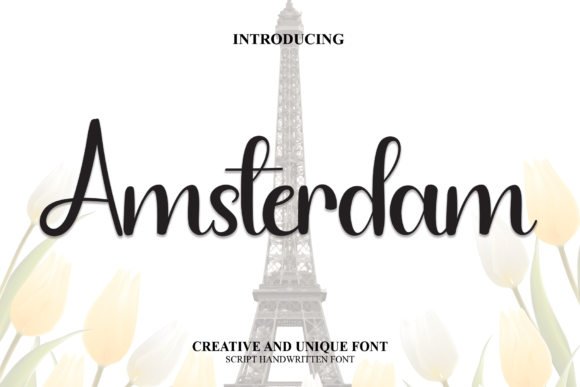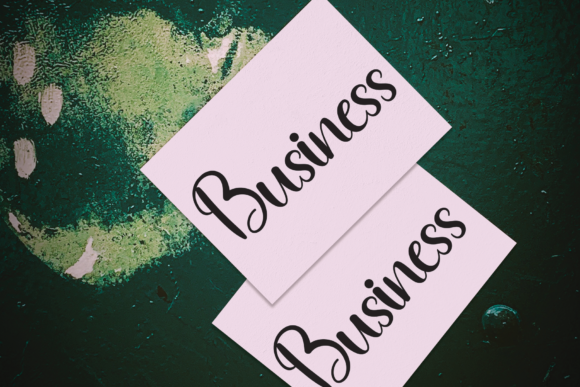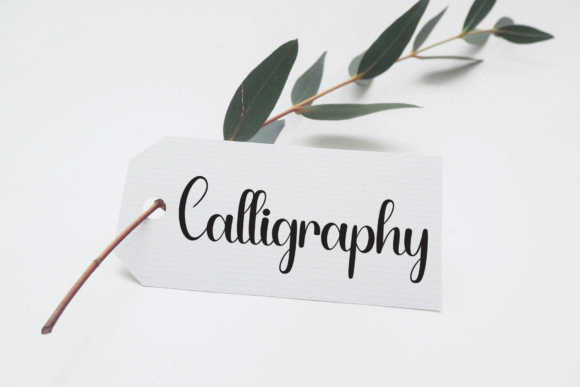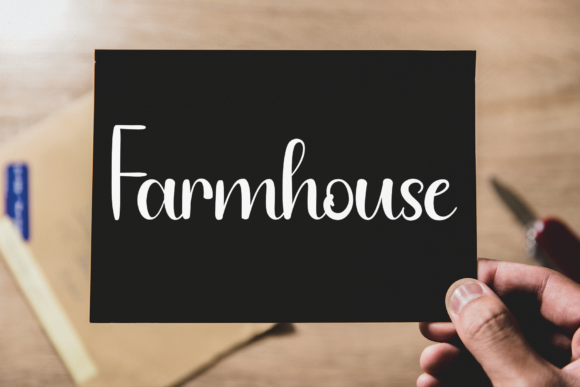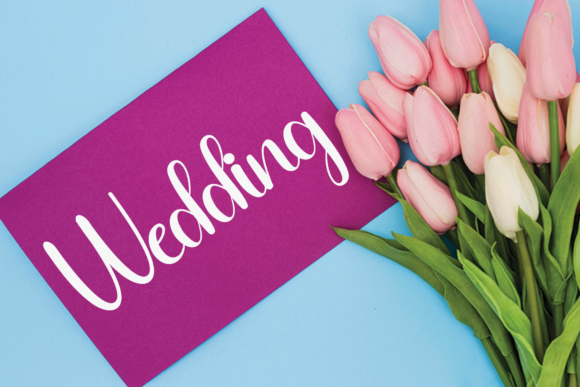
Amsterdam Font
About Amsterdam Font
Introducing this enchanting script font – a captivating blend of sweetness, romance, and beauty that breathes life into your designs. Each letter is adorned with stunning curves, adding a touch of elegance and charm to your typographic creations. But what sets this font apart is not just its visual appeal; it’s the seamless accessibility it offers through PUA encoding, unlocking a world of creativity with every glyph and sweep at your fingertips!
In the realm of design, a font’s ability to convey emotions and create a visual language is unparalleled. This script font achieves just that, combining sweetness, romance, and beauty in a harmonious dance of curves that grace each letterform. The result is not just a set of characters but a visual poetry that evokes feelings of warmth and sophistication.
The curves in this font are nothing short of stunning. Each letter is meticulously crafted to exude a sense of grace and refinement. The smooth lines and elegant swirls enhance the overall aesthetic, making it a perfect choice for projects that require a touch of delicacy and allure. Whether you’re working on wedding invitations, love notes, or any design that demands a romantic vibe, this font delivers with flair.
What makes this script font truly remarkable is its PUA encoding. This feature opens up a treasure trove of possibilities for designers. Accessing all the glyphs and swashes is a breeze, offering unparalleled flexibility in customization. This means you have the power to infuse your designs with unique elements, tailoring each project to your creative vision.
Imagine effortlessly incorporating intricate swashes into your wedding invitations or adding a personalized touch to your social media graphics. With PUA encoding, the process is intuitive, giving you the freedom to explore and experiment without constraints.
In the vast landscape of design possibilities, a font that seamlessly combines sweetness, romance, beauty, and accessibility is a valuable asset. It’s not just a typeface; it’s a tool that empowers you to create visually compelling narratives, leaving a lasting impression on your audience.
So, as you embark on your next design journey, let this sweet, romantic, and beautiful script font be your companion. Elevate your projects with its stunning curves, and revel in the ease of unleashing your creativity through PUA encoding. After all, in the world of design, the right font is not just a choice; it’s a statement, and this font makes a statement that is as sweet and captivating as the curves it bears.